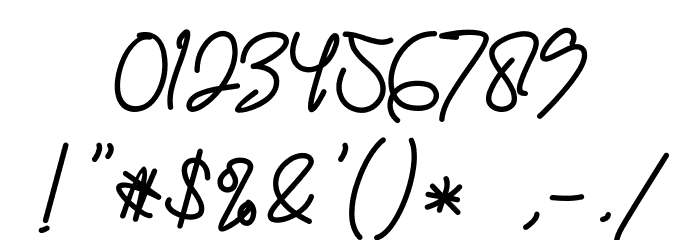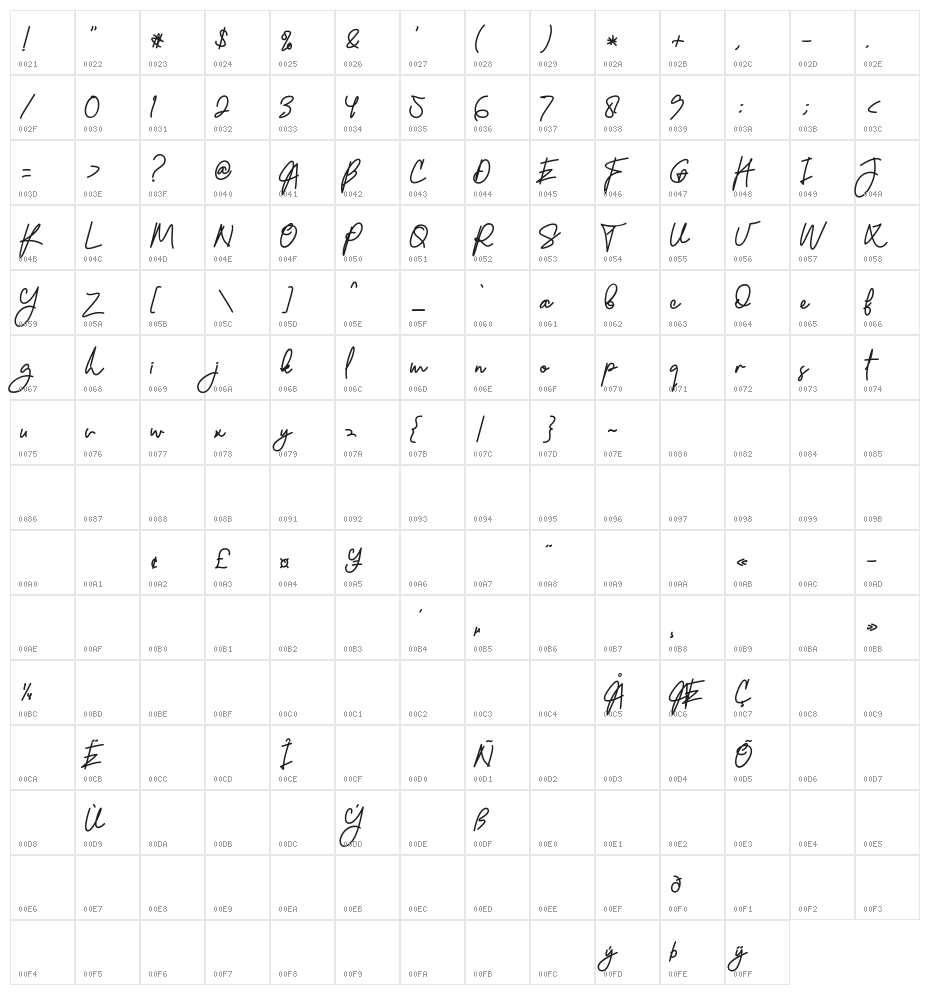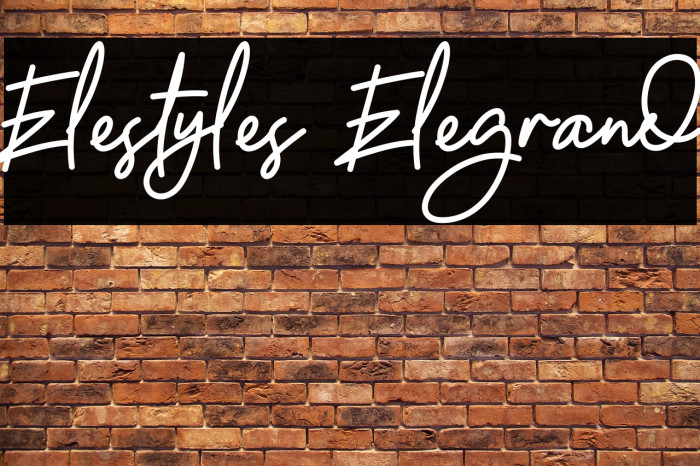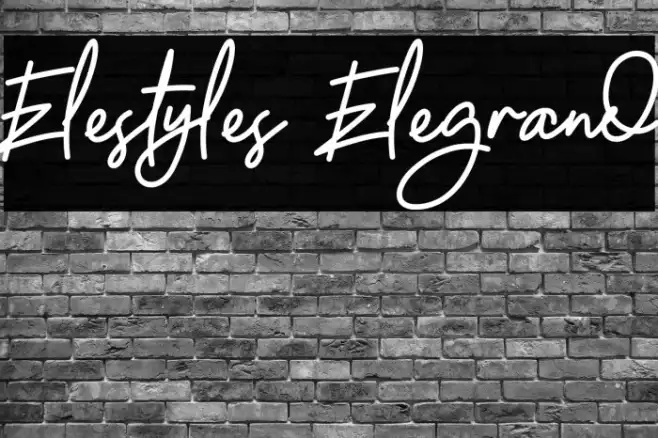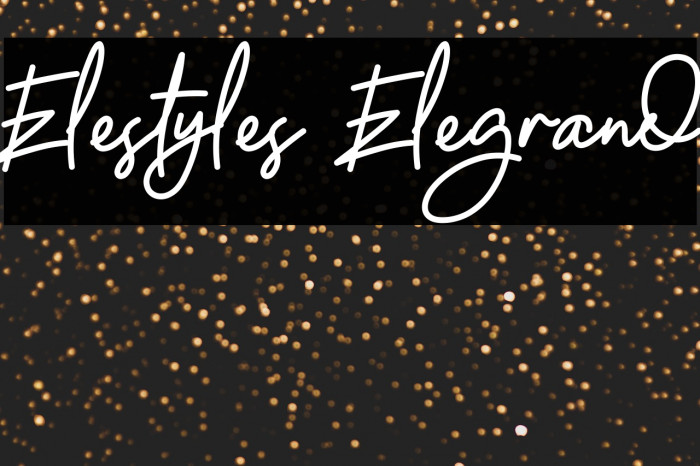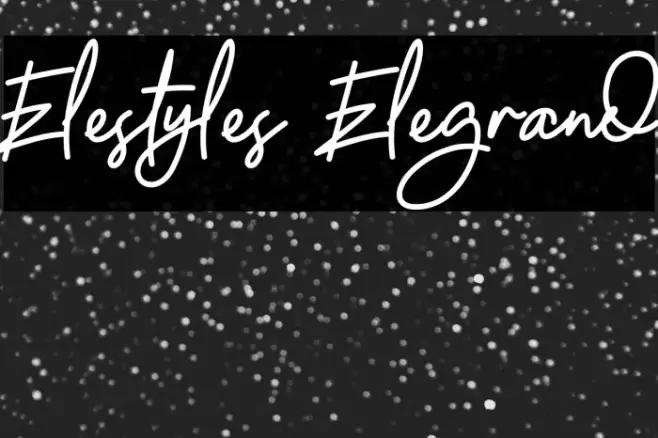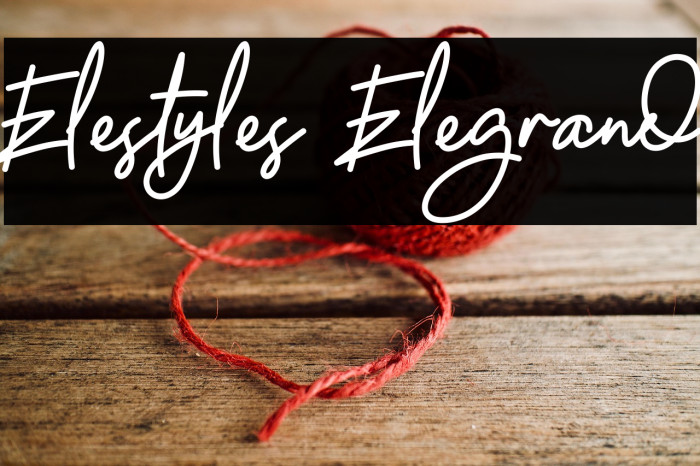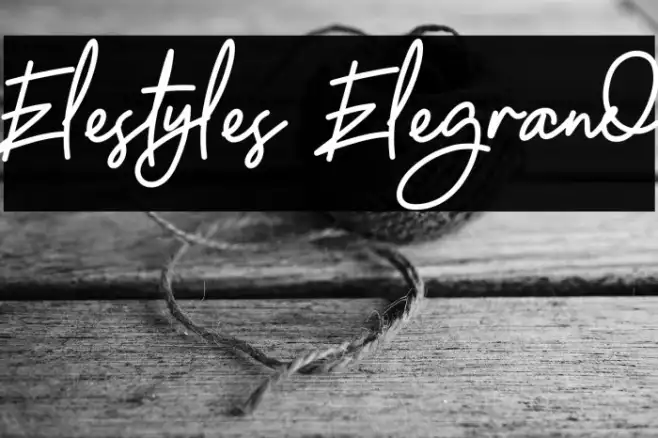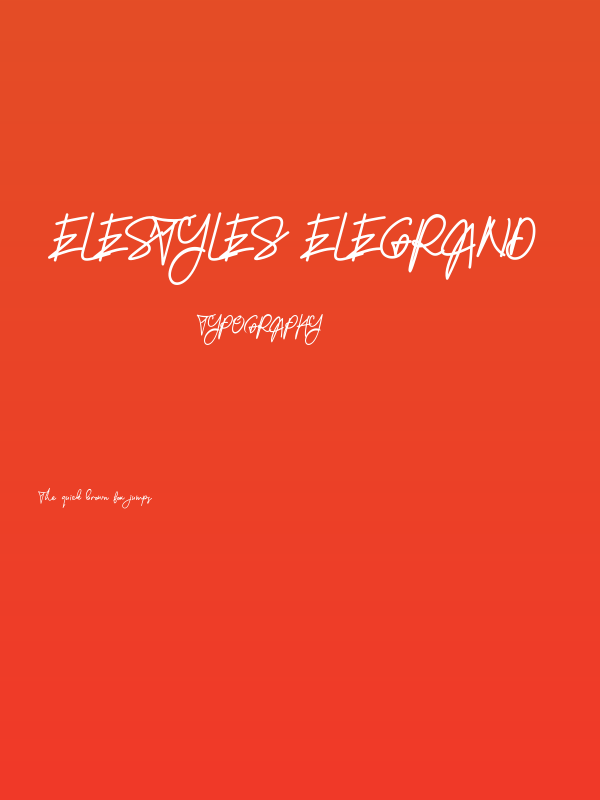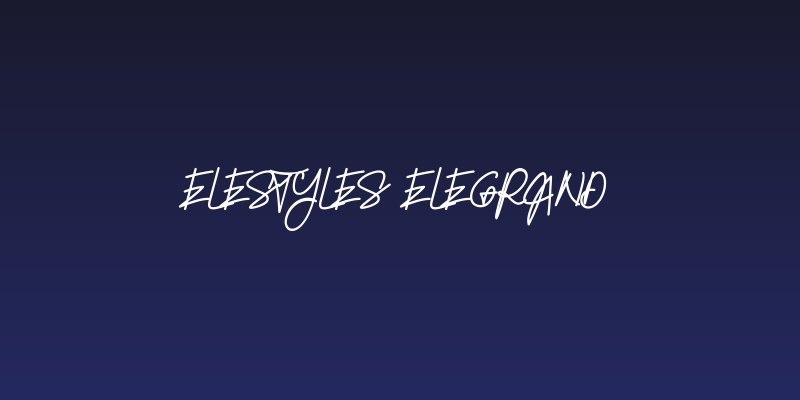
Elestyles Elegrand Font
Elestyles Elegrand Description
This font exudes a dynamic and expressive handwritten style, characterized by its fluid and cursive strokes. The letters are interconnected, giving it a natural and flowing appearance that mimics authentic handwriting. The uppercase letters maintain a consistent height, while the lowercase letters vary in size, adding to the font's organic feel. The numerals and special characters are crafted with the same attention to detail, ensuring a cohesive look across all elements. This font is perfect for projects that require a personal touch, such as invitations, greeting cards, or branding materials that aim to convey a sense of warmth and individuality.
| Use Case | Logos, Headlines, Personal projects |
| Proposed Projects | Ideal for invitations, greeting cards, personal branding, and creative projects needing a personal touch. |